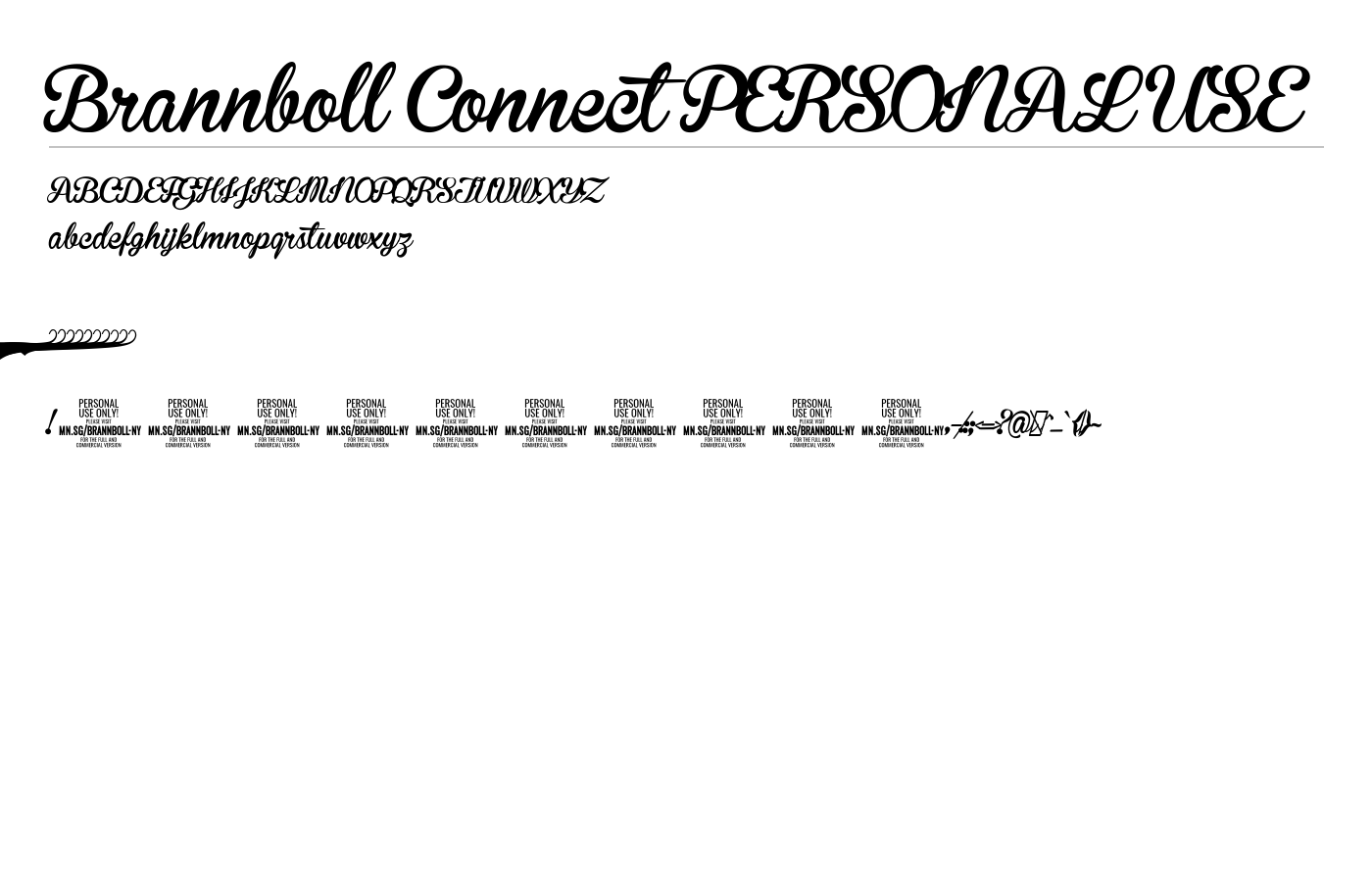
Brannboll Connect is a stylish script font with a flowing, connected design that captures a handwritten, elegant feel. Its smooth curves and consistent strokes make it perfect for creating graceful and personal touches in branding, invitations, or social media graphics where a sense of warmth and sophistication is desired. This font works beautifully in decorative headlines or logos that aim to convey charm and creativity.